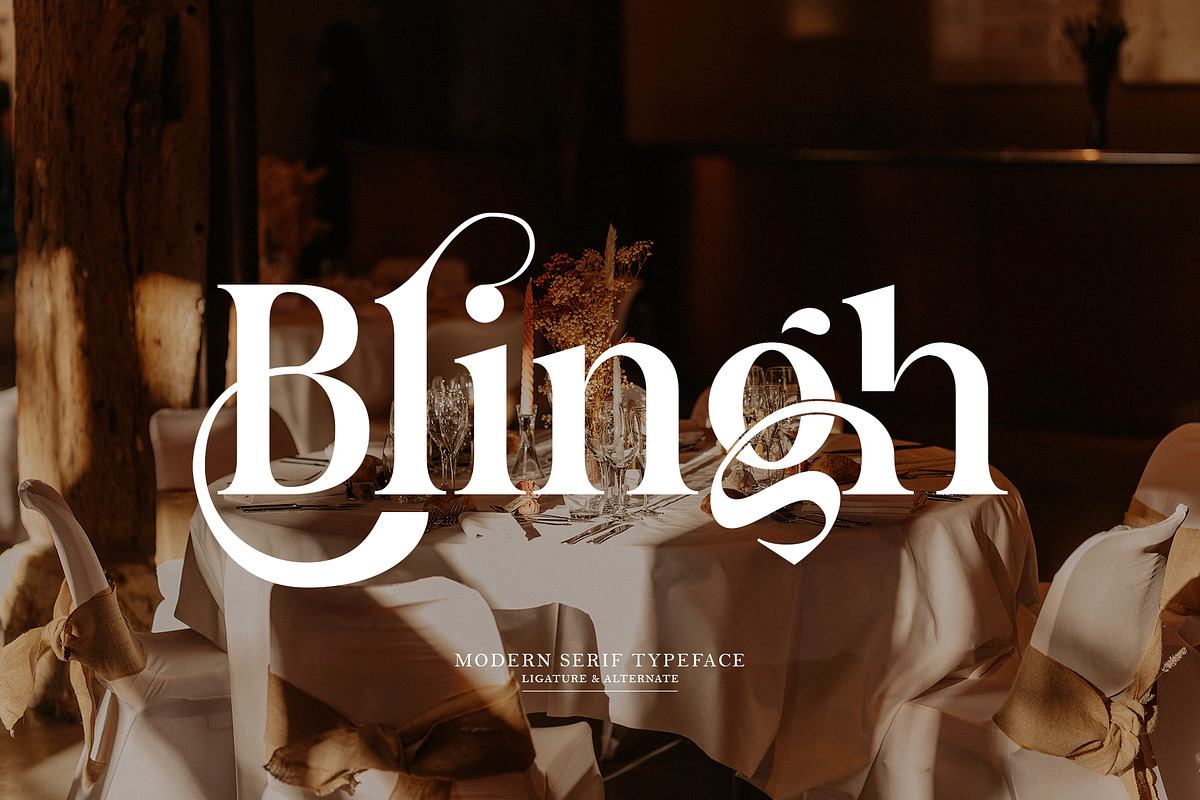
The Blingh Ligature Serif Typeface Free Download is a sophisticated and elegant serif font that incorporates unique ligatures, adding an extra layer of charm and personality to your designs. Perfect for creating high-end logos, branding, editorial designs, and print materials, this font brings a refined touch to any project. Please note, for commercial use, a license must be purchased. You can download it for free for testing purposes.
With its stylish ligatures and classic serif design, the Blingh Ligature Serif Typeface Free Download is ideal for creating timeless, elegant designs that stand out. Whether you're designing for fashion, luxury brands, or editorial content, this font offers a perfect balance of sophistication and readability.